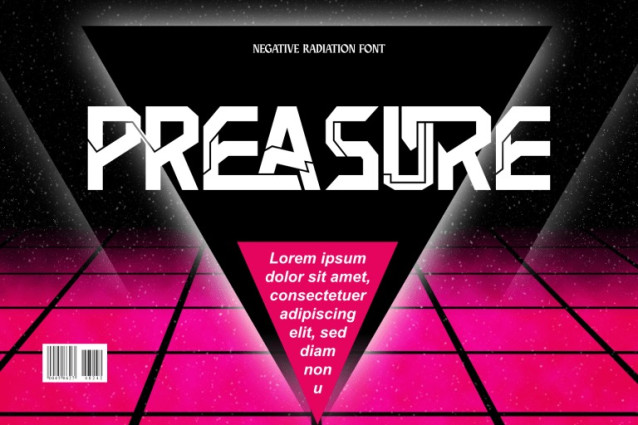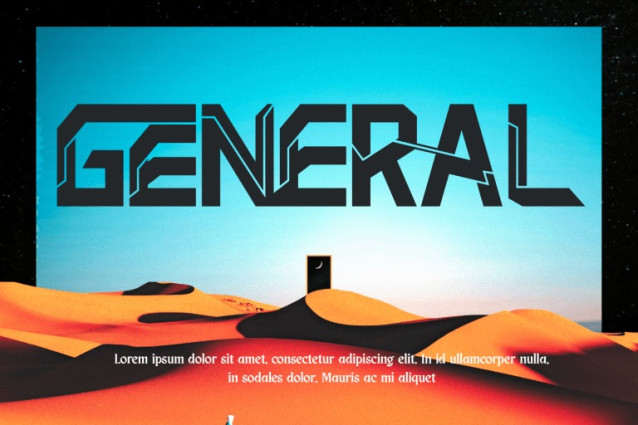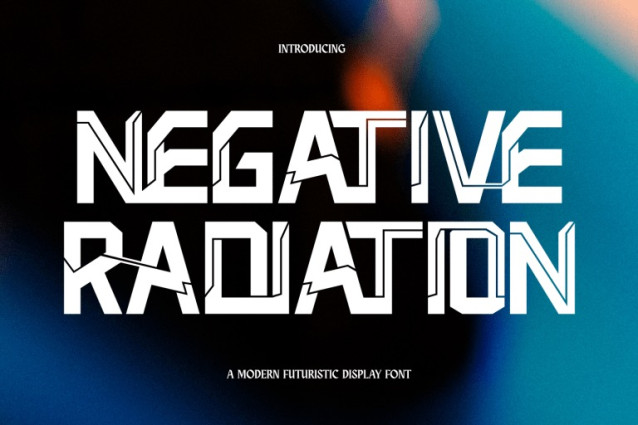
Negative Radiation Font
Negative Radiation – Techno Font is a futuristic techno display sans-serif typeface inspired by cyberpunk aesthetics and modern digital design. Built with bold angular shapes, sharp geometric cuts, and mechanical details, this typeface delivers a powerful high-tech visual identity. Its strong modular structure and dynamic letterforms create a striking rhythm that instantly evokes innovation and energy. Negative Radiation is perfect for gaming titles, sci-fi posters, esports branding, technology logos, and futuristic design projects.
🔤Features:
Uppercase Letters
Around 100 Special Ligatures & Alternates
Accented Characters for multilingual support
🔤About 100 ligatures combined with Stylistic Alternates Font:
AC AD AL AN AR AS AT AU AV BE CA CE CH CO CT DE DI EA EC ED EE EL EM EN EP ER ES ET FE FO FR GE HA HE HI HO IE IC IL IN IO IR IS IT JU KE LA LE LI LL LO LY MA ME MI NC ND NE NG NO NT NS OC OF OM ON OO OP OR OT OU OW PA PR RA RD RE RI RO RS RT SE SH SI SO SS ST TA TE TH TI TO TR TT UM UN UR VE WI WO